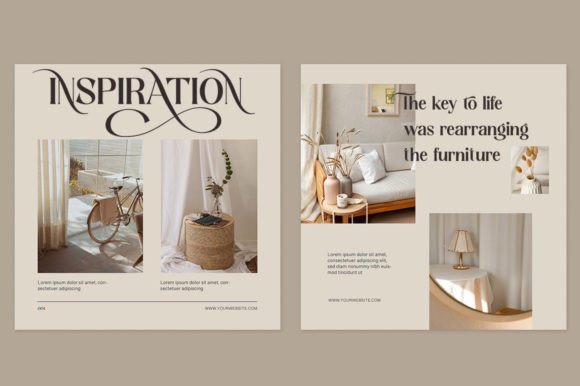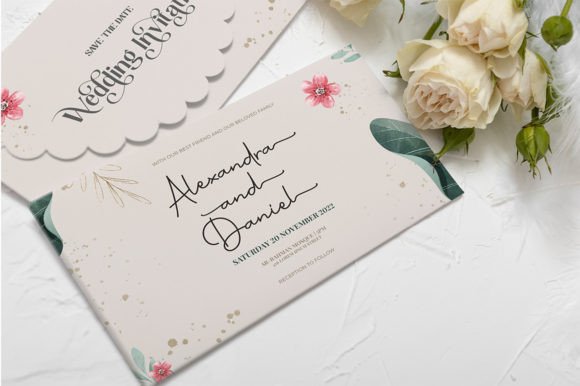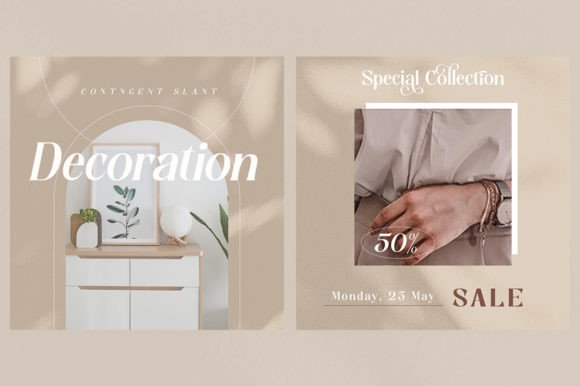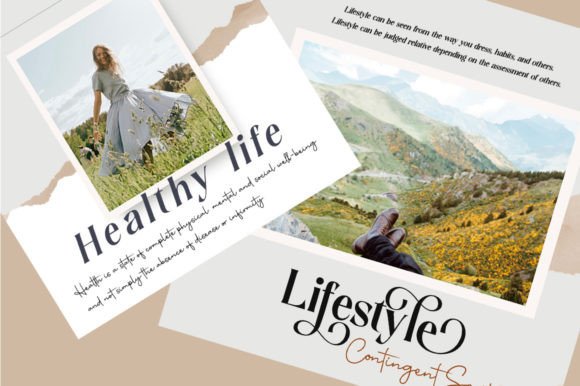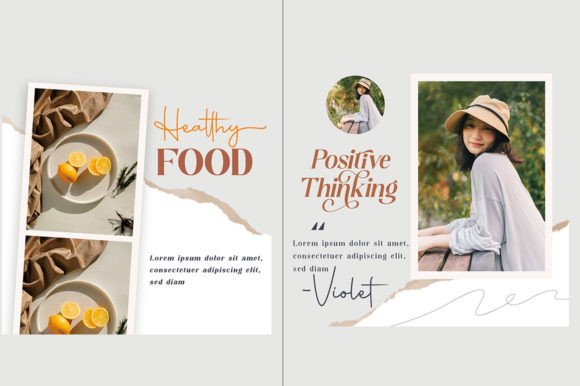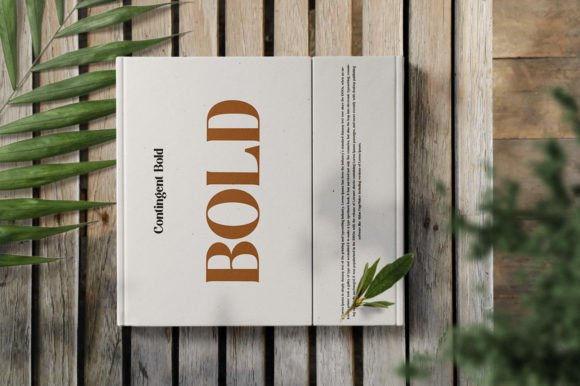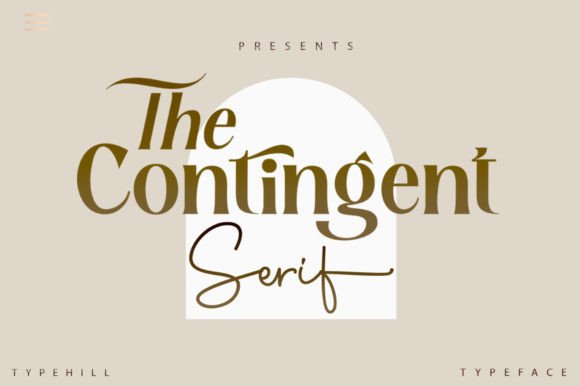
Introducing Contingent Duo Font: Elevate Your Design with Elegance and Sophistication
In the world of design, fonts play a crucial role in conveying the message and aesthetic of a brand or project. A well-chosen font can elevate your design, making it more engaging, readable, and memorable. If you’re a designer, craftsperson, or simply someone who appreciates the art of typography, you’re in luck! Today, we’re excited to introduce the Contingent Duo Font, a stylish and modern font duo that will take your designs to the next level.
What is Contingent Duo Font?
Contingent is a thoughtfully crafted font duo consisting of an elegant script and a unique serif font. This powerful combination brings a trendy and minimalist look to your designs, perfect for those who appreciate clean lines, simplicity, and sophistication. Whether you’re working on a website, logo, brand identity, social media quotes, wedding stationery, or any other design project, Contingent Duo Font is the perfect choice.
The Elegant Script Font
The script font in the Contingent Duo is an elegant and refined addition to any design. Its fluid lines and beautiful swashes evoke a sense of luxury and sophistication, perfect for high-end brands, wedding stationery, and other special occasions. The script font is highly legible, making it suitable for body text, headings, and titles. Its versatility allows you to use it in a variety of contexts, from formal to informal, and still achieve a stylish and polished look.
The Unique Serif Font
The serif font in the Contingent Duo is a masterclass in modern typography. Its unique design features subtle rounded edges and a minimalist aesthetic, making it perfect for designs that require a clean and contemporary look. The serif font is highly versatile and can be used for body text, headings, and titles. Its excellent legibility ensures that your message is conveyed clearly, making it ideal for websites, blogs, and other digital platforms.
Why Choose Contingent Duo Font?
So, what sets Contingent Duo Font apart from other font duos on the market? Here are just a few reasons why designers and craftspersons love this font:
• Elegant and Sophisticated: Contingent Duo Font brings a level of elegance and sophistication to your designs, perfect for high-end brands and special occasions.
• Versatile: The font duo is highly versatile and can be used in a variety of contexts, from formal to informal, and still achieve a stylish and polished look.
• Clean and Luxurious: The font duo features clean lines, subtle rounded edges, and a minimalist aesthetic, making it perfect for designs that require a clean and luxurious look.
• Excellent Legibility: Both fonts in the duo are highly legible, ensuring that your message is conveyed clearly and effectively.
How to Use Contingent Duo Font
Using Contingent Duo Font is easy! Here are a few ideas to get you started:
• Websites: Use the font duo to create a clean and luxurious look for your website. Perfect for blogs, portfolios, and e-commerce sites.
• Logos and Brand Identities: Create a lasting impression with the Contingent Duo Font. Its elegant and sophisticated design makes it perfect for high-end brands.
• Social Media Quotes: Add a touch of elegance to your social media quotes with the Contingent Duo Font.
• Wedding Stationery: Make your wedding stationery truly special with the beautiful script font in the Contingent Duo.
In conclusion, Contingent Duo Font is a stylish and modern font duo that will elevate your designs to new heights. Its elegant script and unique serif font bring a clean and luxurious style to your website, logos, brand identities, social media quotes, wedding stationery, and more! With its versatility, excellent legibility, and sophisticated design, Contingent Duo Font is the perfect choice for designers and craftspersons who appreciate the art of typography.